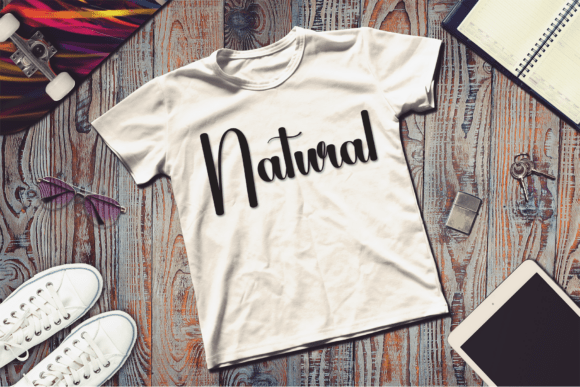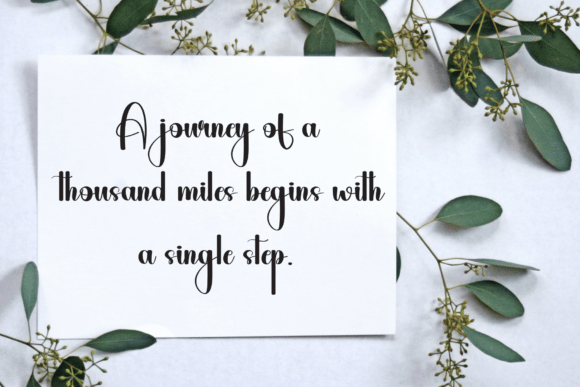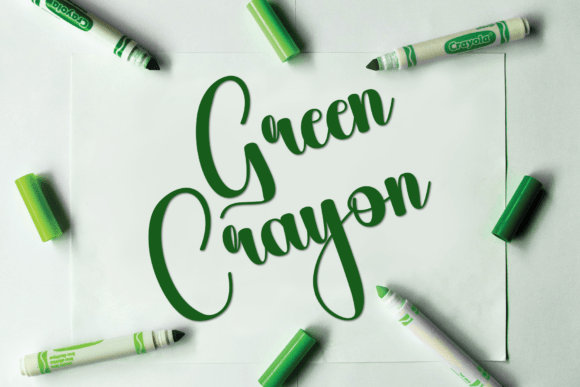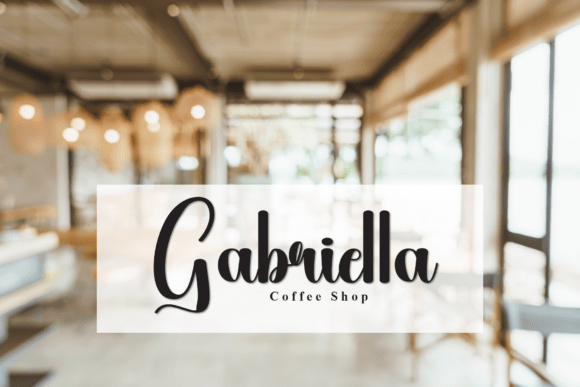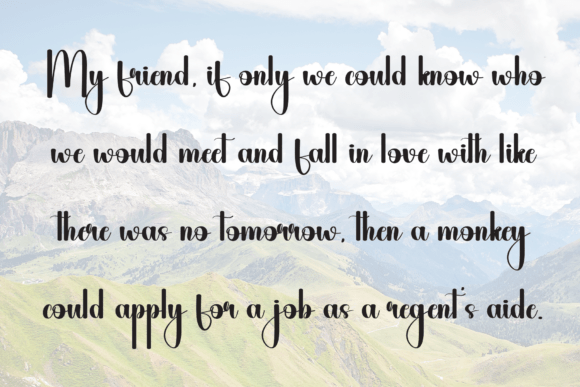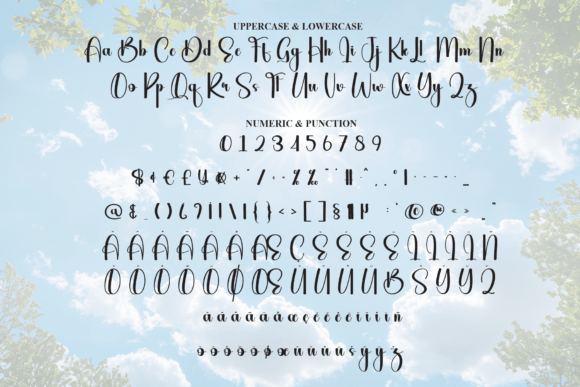
The Magic of Daylight Font: Elevating Your Designs with Elegance and Playfulness
Have you ever been in the middle of a design project, and suddenly, you’re stuck on finding the perfect font? I recall a recent experience where a client asked for a font that exuded both sophistication and whimsy for their wedding invitation suite. After scouring through numerous font options, I stumbled upon Daylight Font, and it instantly became the perfect fit. In this article, we’ll dive into the world of Daylight Font, exploring its unique features, and how to make the most of it in your designs.
A Personal Review: What I Love About Daylight Font
Daylight Font is a stylish handwritten script font that captures elegance and playfulness in every stroke. Here are some aspects that I absolutely adore:
- ✨ Flowing curves and natural rhythm: The font’s organic feel adds a personal touch to any design, making it perfect for invitations, branding, and social media.
- ✅ Elegant and sophisticated: Daylight Font brings a level of refinement to projects, making it ideal for high-end clients or special occasions.
- 💫 Versatile and creative: The font’s playful undertones make it suitable for a wide range of design applications, from wedding invitations to social media graphics.
While Daylight Font is an exceptional font, there are a few minor quirks to be aware of:
- 🤔 Limited use of uppercase letters: Some designers might find the uppercase letters a tad too ornate or over-the-top for certain projects.
- ⚠️ Requires OpenType features: To fully utilize Daylight Font’s capabilities, you’ll need to have OpenType features enabled in your design software.
Daylight Font was crafted with the intention of capturing the essence of a sunny day – warm, elegant, and full of life. The designer aimed to create a font that would bring a personal touch to designs, making it perfect for creative projects and special occasions. While the real story behind Daylight Font’s creation might be unknown, its beauty and charm are undeniable.
Q: Is Daylight Font suitable for body text?
A: While Daylight Font is stunning, it’s best suited for display text or short paragraphs. Its elegant and playful nature makes it perfect for headlines, titles, and captions.
Q: Does Daylight Font support multiple languages?
A: Daylight Font might support some languages, but its primary focus is on English and other Western European languages. Be sure to check the font’s specifications for more information.